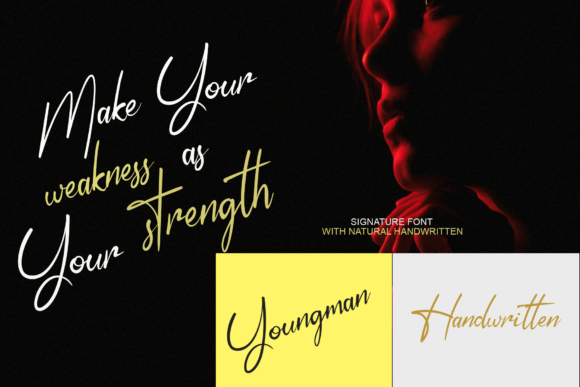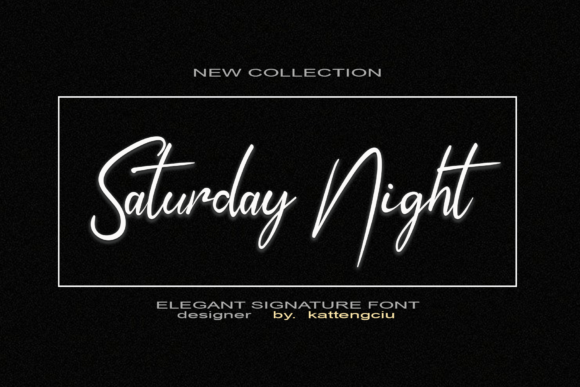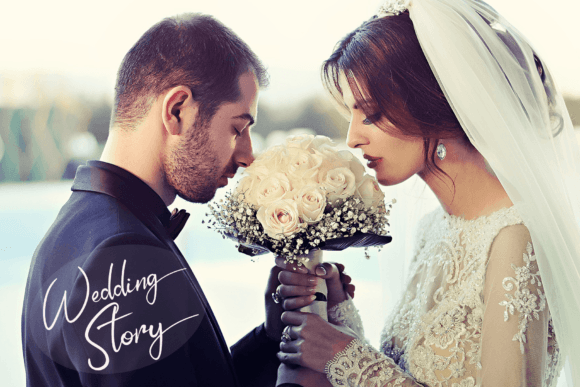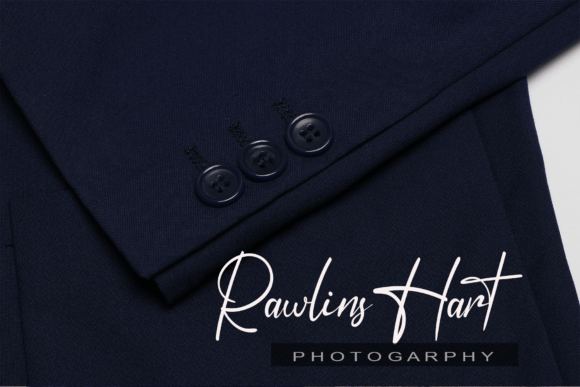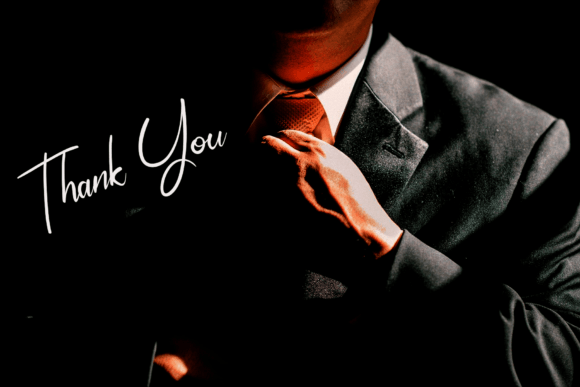
The Designer’s Delight: Beautiful Lenttering Font
I still remember the frustration of working on a project, hours spent crafting the perfect design, only to realize that the font I chose just wasn’t cutting it. The client wanted something fresh, something playful, but also professional. I scoured the internet, tried countless fonts, but nothing seemed quite right. That was until I stumbled upon Beautiful Lenttering. This cool, simple, and playful handwritten font has been a game-changer for me, and I’m excited to share its awesomeness with you! 😊
So, what makes Beautiful Lenttering so special? Let’s dive into the good stuff and, of course, a few quirks I’ve noticed.
- ✨ Versatility: This font is incredibly versatile. Whether you’re working on a branding project, a social media graphic, or a craft project, Beautiful Lenttering fits right in.
- ✅ Readability: Despite its playful nature, the font remains highly readable, even at smaller sizes.
- 💫 Aesthetic Appeal: The hand-drawn feel adds a touch of warmth and personality to any design.
While Beautiful Lenttering is fantastic, there are a couple of things to keep in mind:
- ⚠️ Limited Formality: Given its playful nature, it might not be the best fit for very formal or corporate projects.
- 🤔 Glyph Variety: While it has a good range of glyphs, you might find yourself wishing for a few more stylistic alternates for super custom projects.
The Story Behind Beautiful Lenttering
Beautiful Lenttering was crafted with love by a designer who wanted to capture the essence of handwriting in a digital age. Inspired by the imperfections and uniqueness of handwritten letters, this font brings a piece of the human touch to digital and print designs alike. While the exact story behind its creation might be shrouded in mystery, its impact on the design community is very real.
| Author | Preketek texs |
Q: Is Beautiful Lenttering suitable for body text?
A: While it’s primarily designed for display purposes, its readability makes it suitable for short paragraphs of body text, but for long reads, a serif font might be better.
Q: How does Beautiful Lenttering compare to similar fonts?
A: It strikes a balance between playfulness and professionalism. Compared to similar fonts, it may offer a unique touch that sets it apart for certain projects.